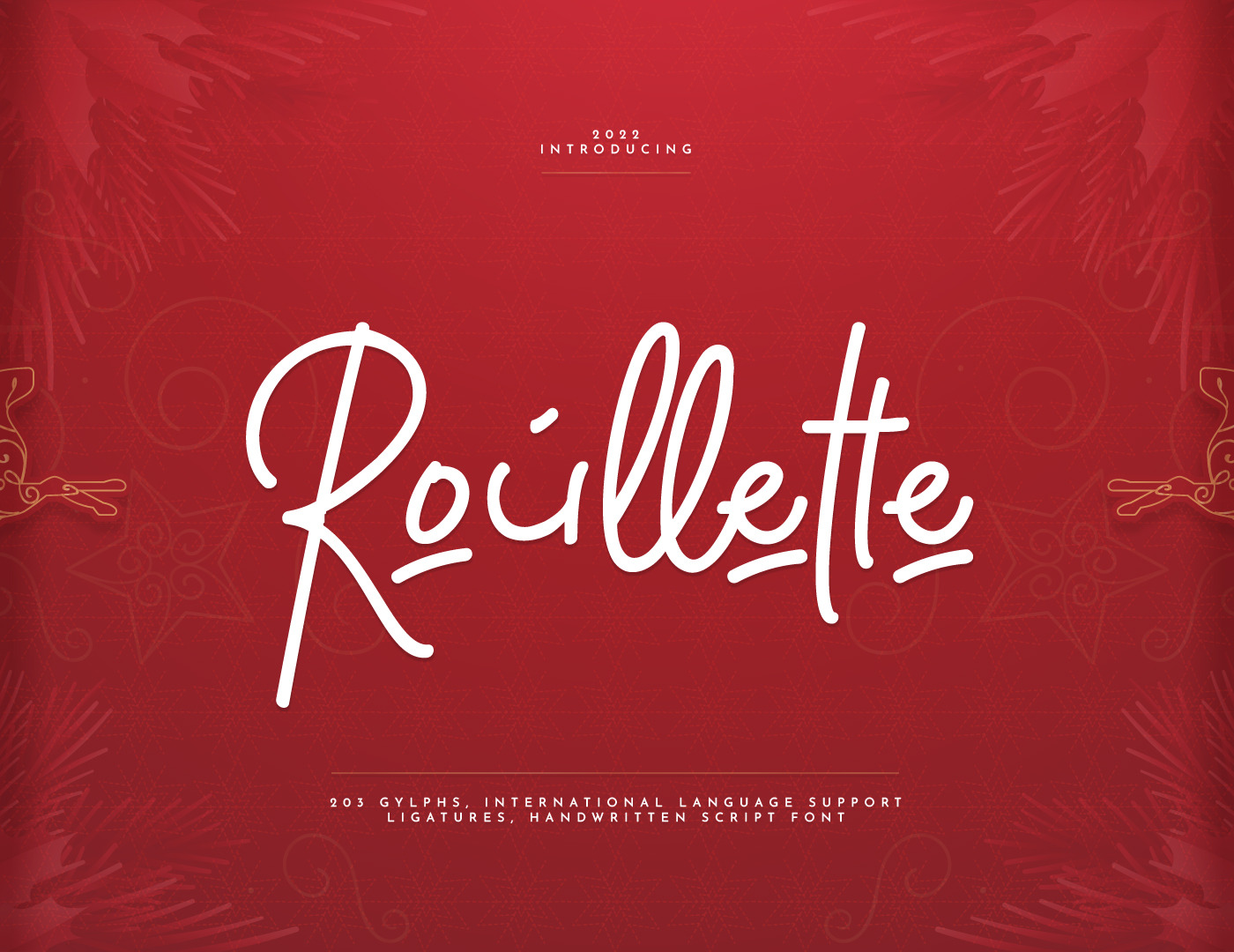
Roullette Handwritten Script Font
Introducing latest Script font design 2022, Roullette. Inspired from Russian Roulette: cylindrical brush-shaping, messy, elongated, and has a narrow spacing as the revolver and Russian Roulette vibes. Bring us interesting-but-deadly feels, "Roullette" perfectly covered with red and 'sweet' design. "Roullette" is appropriate for posters, valentine projects, wedding projects, cards, pamphlets, menu, and many designs. It will bring sweet, feminine, calligraph, and artistic look on the design.